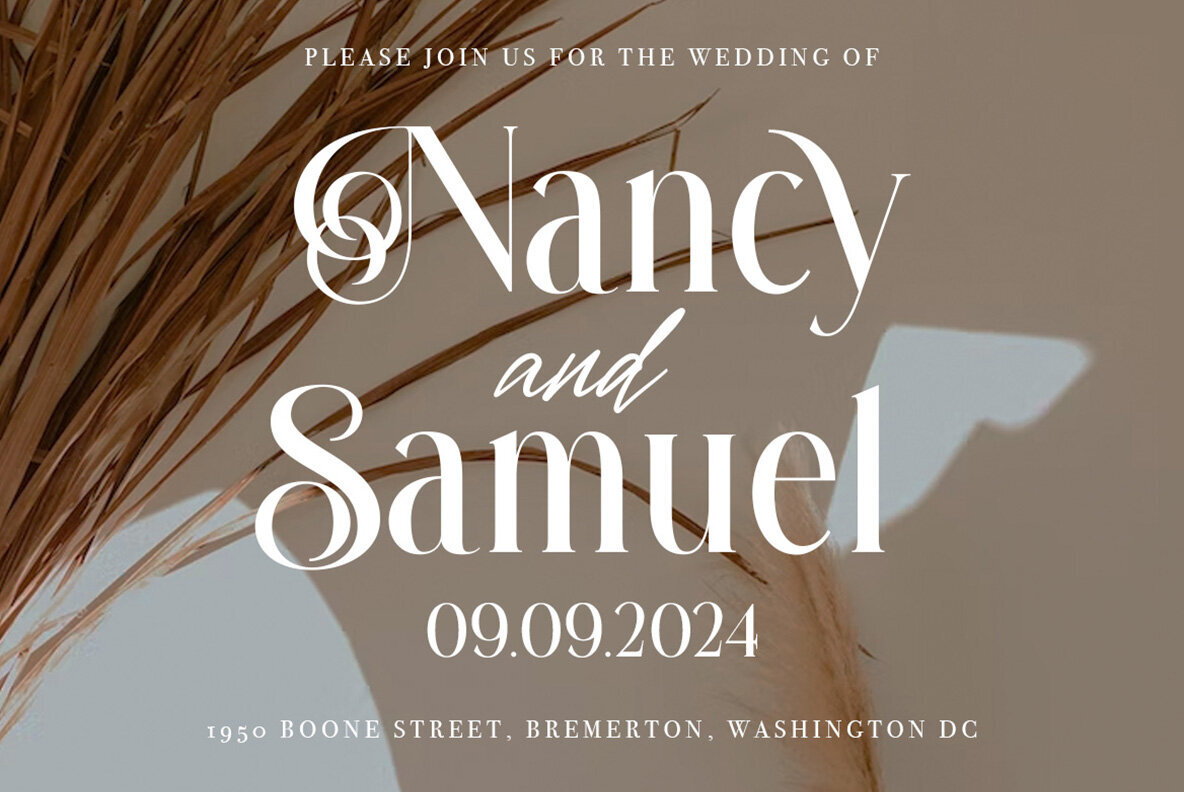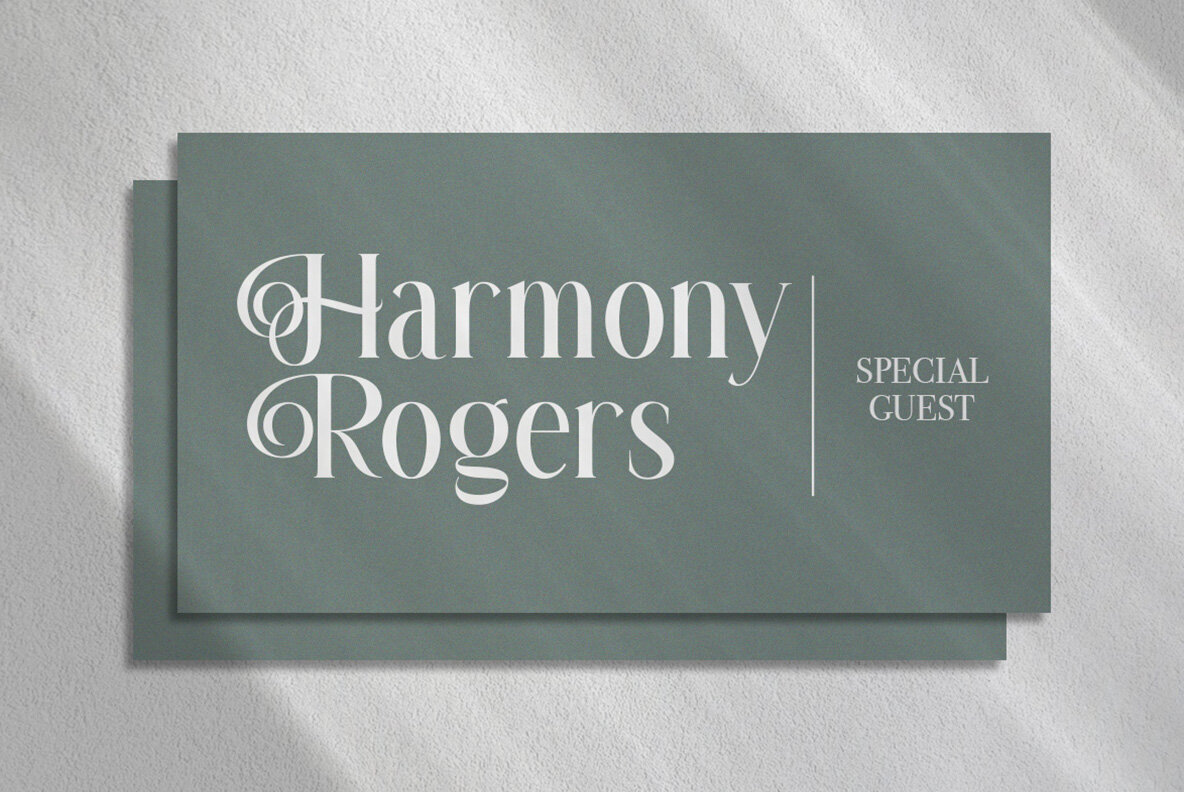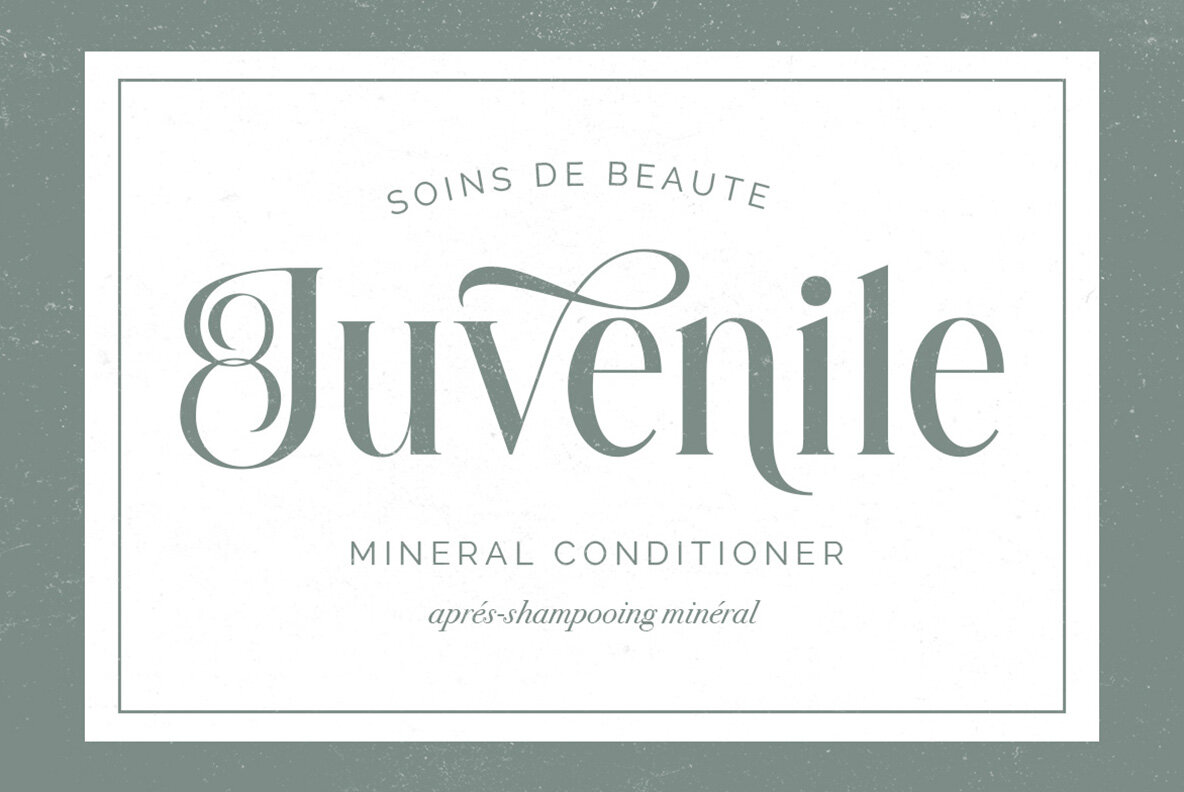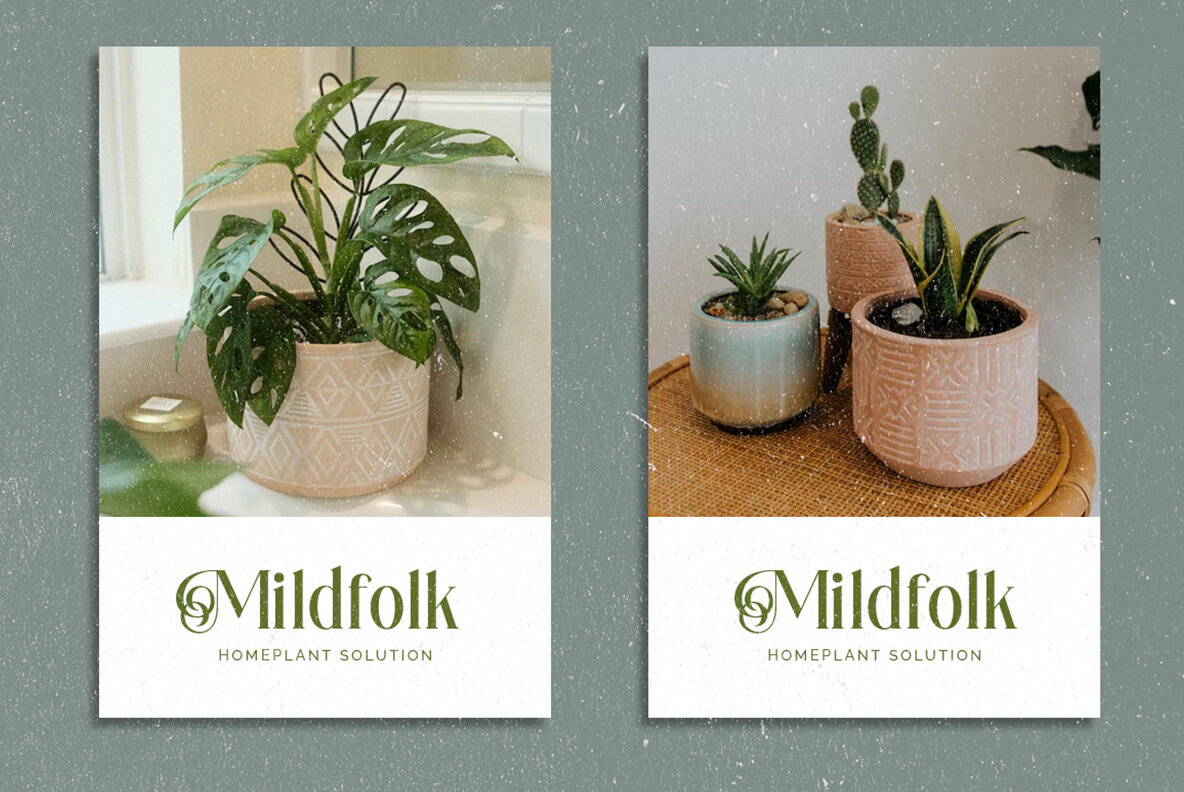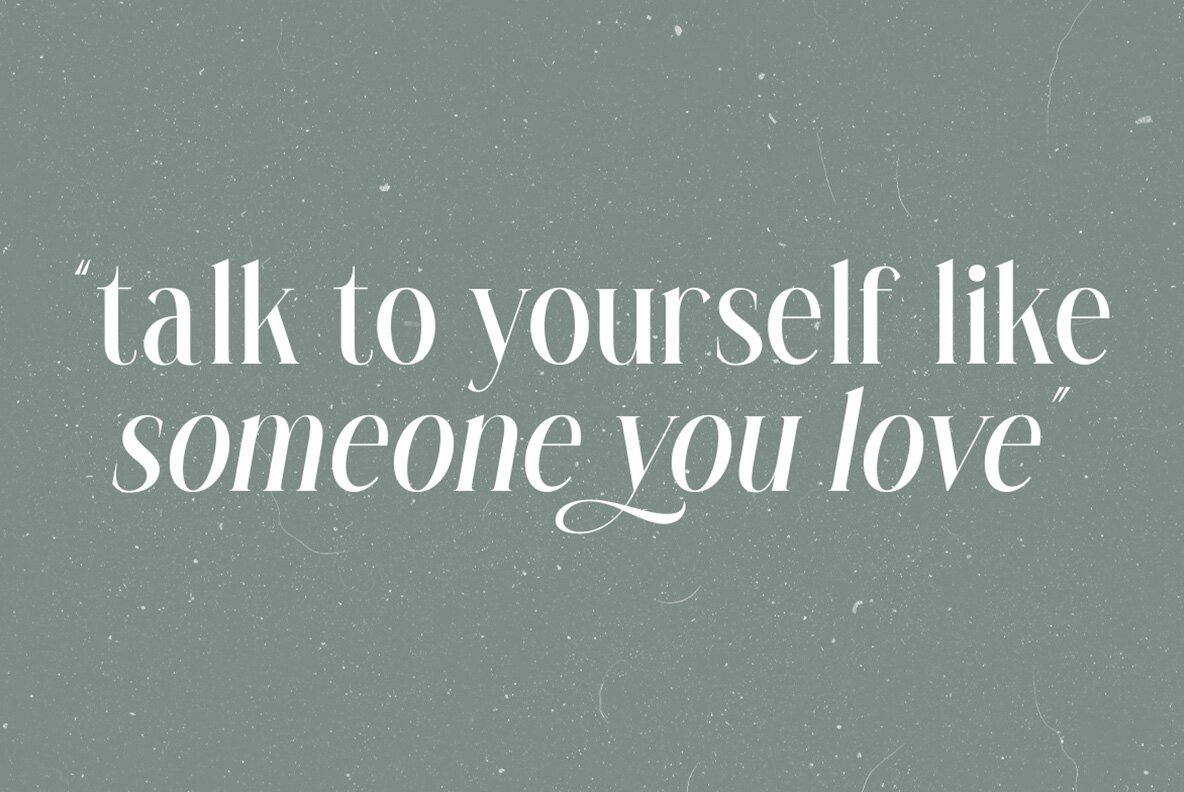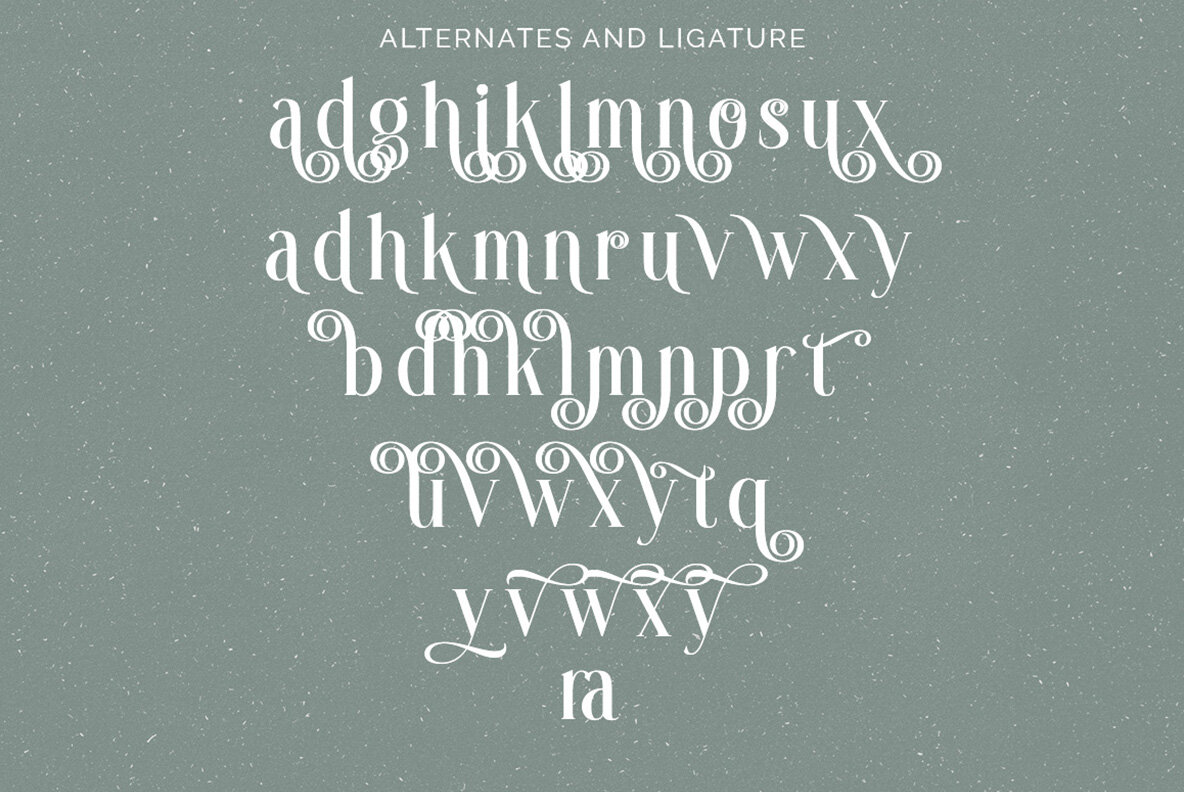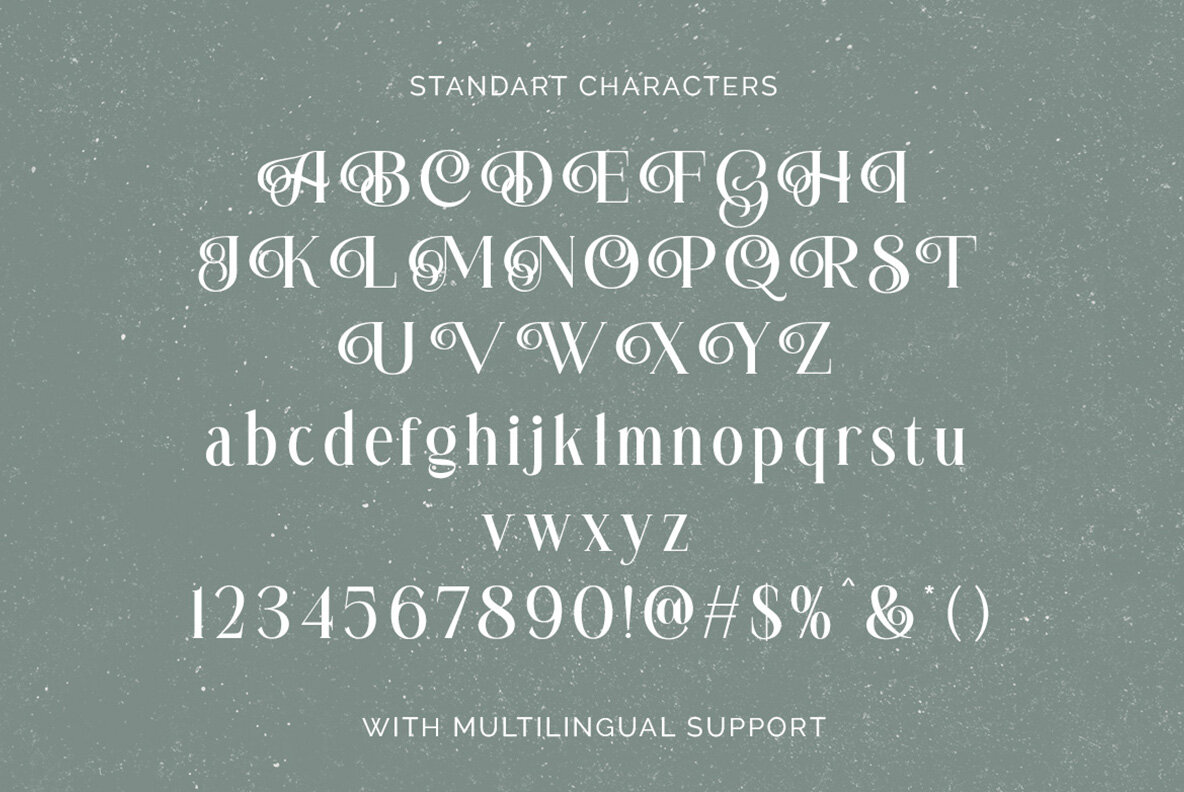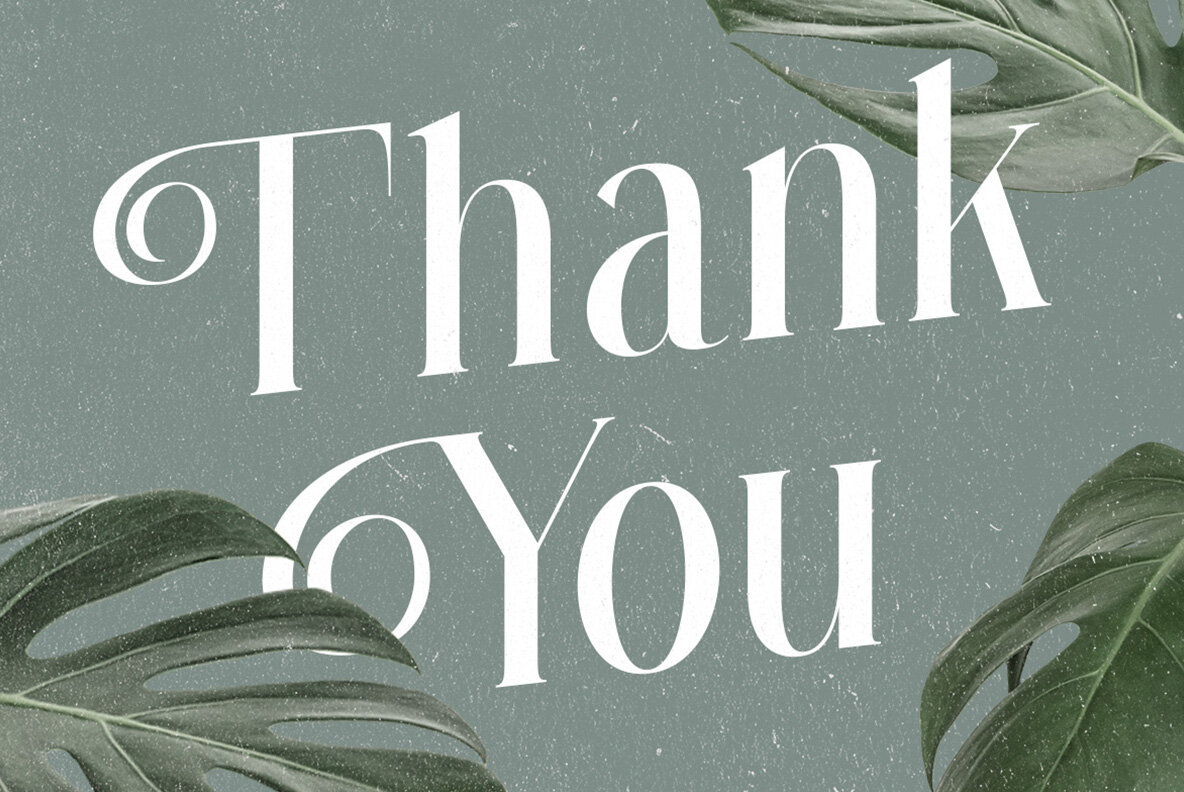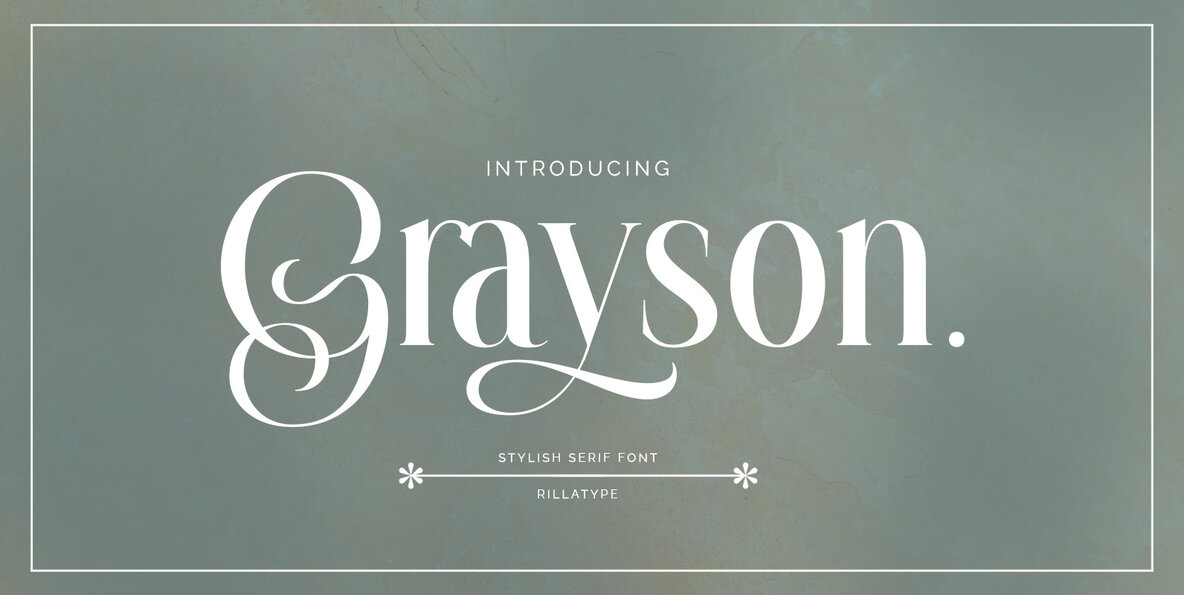
Grayson Font
Grayson Regular
Grayson Slant
Infusing elegance into your designs, Grayson is a distinctive swash serif font that balances sophistication with a touch of femininity. It's an exemplary choice for a range of applications including magazine layouts, editorial headlines, and social media posts.Grayson: A Sophisticated Swash Serif